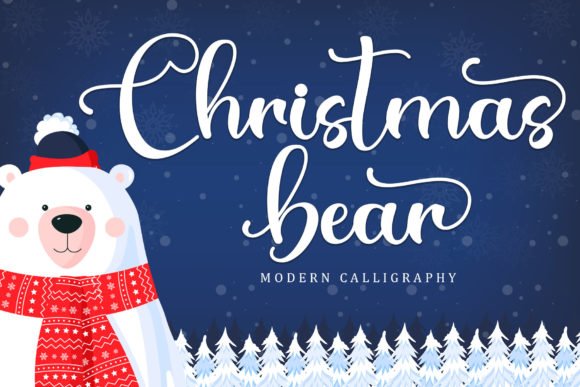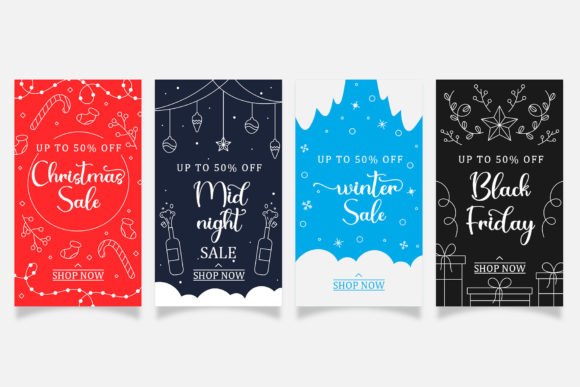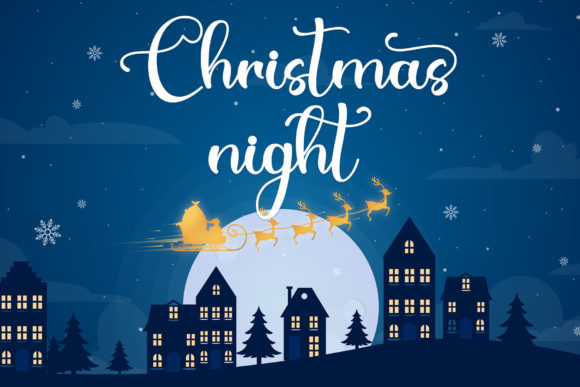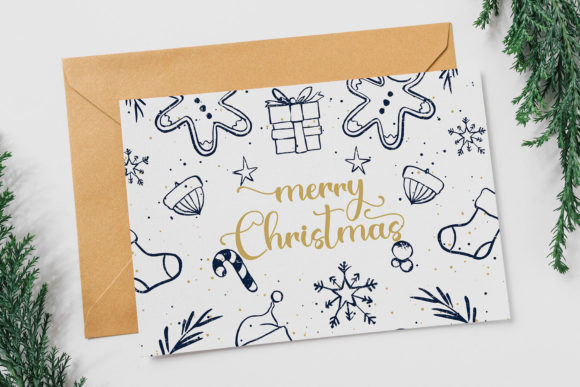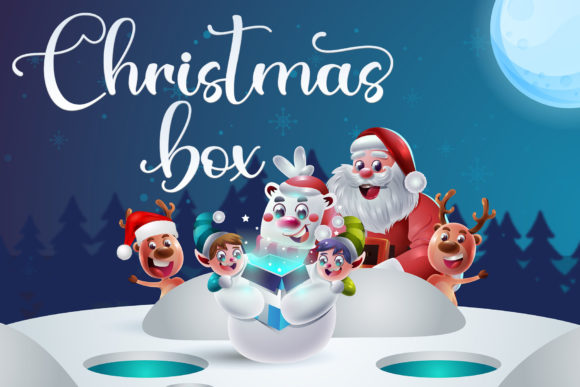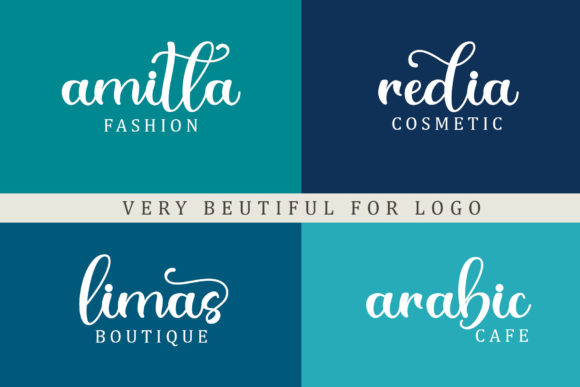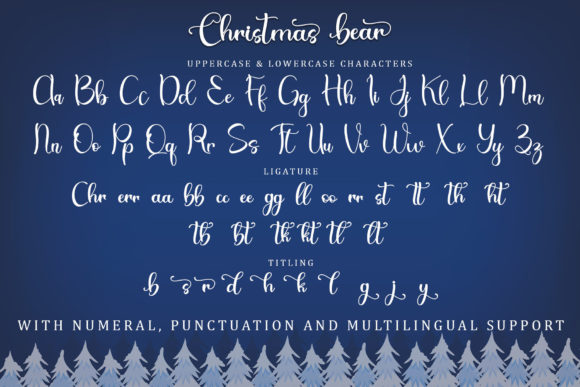
A Holiday Font to Fall in Love With: Christmas Bear Font
Enter Christmas Bear Font, a sweet, joyful, and festive handwritten font that’s sure to become your new go-to companion for all things holiday. With its PUA encoding, you’ll have access to all the glyphs and swashes you need to create truly magical designs. Whether you’re designing greeting cards, social media posts, or even a holiday-themed website, Christmas Bear Font is the perfect asset to elevate your creations and make them truly special.
- Unique Characteristics: The font features a playful, handwritten style with a festive theme, ideal for creating a warm and inviting atmosphere in holiday-themed designs.
Designer Review: Christmas Bear Font
I recently had the chance to work with the Christmas Bear Font, and I must say, it’s a delightful addition to any holiday design project. ✨ The font’s playful, whimsical feel is perfect for creating a cheerful atmosphere, and its bold lines make it easy to read, even in small sizes.
The font’s character set includes a wide range of symbols, including snowflakes, stars, and even a few fun emojis, which adds to its charm. ✨ I particularly love the way the font’s curves and lines evoke a sense of winter wonder.
While the Christmas Bear Font is a great choice for many projects, there are a few limitations to be aware of. ⚠️ For one, the font is only available in a limited set of languages, which may be a concern for designers working on multilingual projects.
- ⚠️ Limited language support
- ⚠️ Not ideal for formal or professional designs
Overall, I think the Christmas Bear Font is a great choice for designers looking to add a bit of holiday cheer to their projects. While it may not be suitable for every project, its playful feel and wide range of symbols make it a great option for those looking to create a fun and festive atmosphere.
Getting the Most Out of Christmas Bear Font
For optimal results, use the Christmas Bear Font in conjunction with festive graphics and colors. Experiment with different font sizes and styles to achieve a balanced design. This font is particularly well-suited for holiday greeting cards, gift tags, and social media graphics.
Christmas Bear Font is ideal for:
– Holiday greeting cards and gift tags
– Event invitations and announcements
– Print materials, such as flyers and brochures